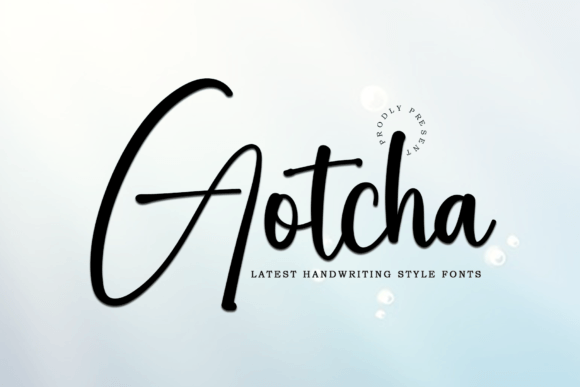
Introducing Gotcha Font: The Ultimate Round-Lettered Handwritten Font
Are you tired of using the same old fonts for your designs and crafts? Look no further! Gotcha Font is a unique, round lettered handwritten font that is sure to take your creative projects to the next level. Carefully crafted to produce the desired results, Gotcha Font is perfect for designers, crafters, and anyone looking to add a personal touch to their work.
What is Gotcha Font?
Gotcha Font is a one-of-a-kind, handwritten font that features round letters and a playful, cursive style. Its uniqueness lies in its ability to add a touch of personality to any project, making it stand out from the crowd. Whether you’re designing a title, invitation, letter, or any other type of product, Gotcha Font is the perfect choice.
Features of Gotcha Font
- Unique and Handwritten: Gotcha Font is a carefully crafted, handwritten font that is sure to add a personal touch to your designs and crafts.
- Round Lettered: The font features round letters that give it a playful and cursive style.
- Versatile: Gotcha Font can be used to write titles, invitations, letters, and many other types of products.
- Easily Readable: The font is designed to be easily readable, making it perfect for both digital and print projects.
Uses of Gotcha Font
Gotcha Font is a versatile font that can be used for a wide range of projects, including:
- Titles and Headings: Use Gotcha Font to create eye-catching titles and headings for your designs and crafts.
- Invitations: Add a personal touch to your invitations with Gotcha Font, making them stand out from the crowd.
- Letters and Correspondence: Use Gotcha Font to add a touch of personality to your letters and correspondence.
- Digital and Print Projects: Gotcha Font is perfect for both digital and print projects, including brochures, flyers, and more.
Benefits of Using Gotcha Font
Using Gotcha Font can bring numerous benefits to your designs and crafts, including:
- Uniqueness: Gotcha Font is a one-of-a-kind font that will set your designs and crafts apart from the rest.
- Personality: The font adds a personal touch to your projects, making them more relatable and engaging.
- Versatility: Gotcha Font can be used for a wide range of projects, making it a valuable addition to your font collection.
Tips for Using Gotcha Font
Here are some tips for using Gotcha Font to get the most out of this amazing font:
- Experiment with Sizes: Try using Gotcha Font in different sizes to add visual interest to your designs and crafts.
- Pair with Other Fonts: Pair Gotcha Font with other fonts to create a unique and visually appealing combination.
- Use for Emphasis: Use Gotcha Font to add emphasis to certain words or phrases in your designs and crafts.